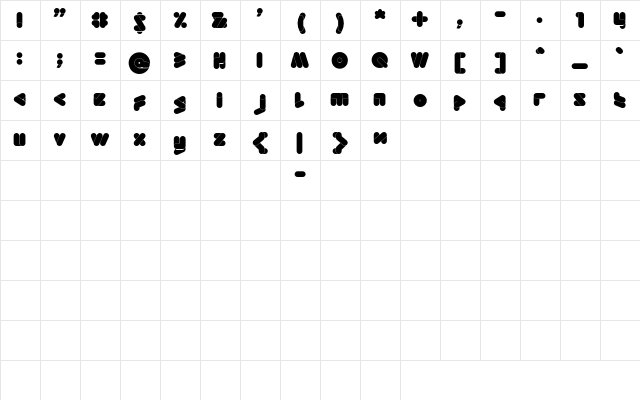
EMPEROR OF JAPAN Bold
Design Context for EMPEROR OF JAPAN Typeface
EMPEROR OF JAPAN is a composed and adaptable typeface that performs quietly and consistently across a wide range of design contexts. The heavy weight commands attention and anchors typographic hierarchies.
Pro Tip: Pair EMPEROR OF JAPAN with a font of contrasting weight or personality to build a more expressive typographic hierarchy.